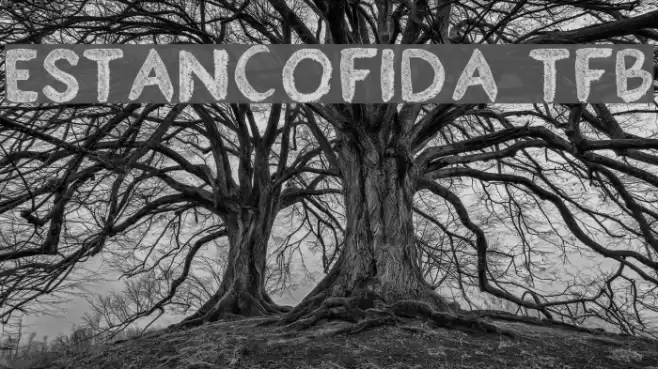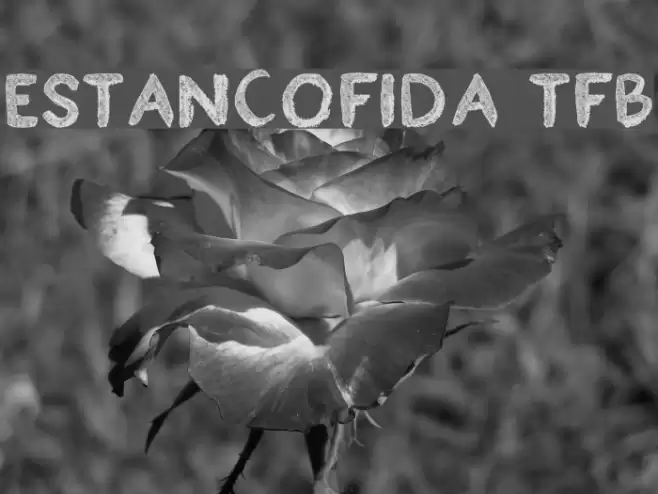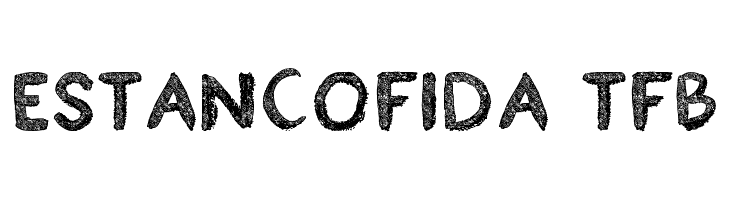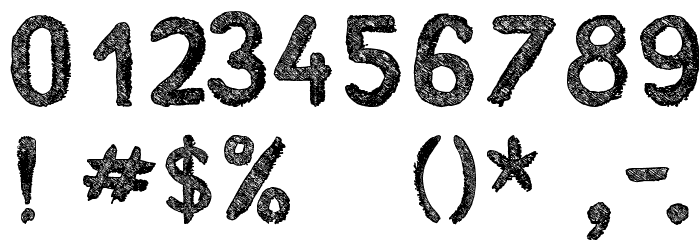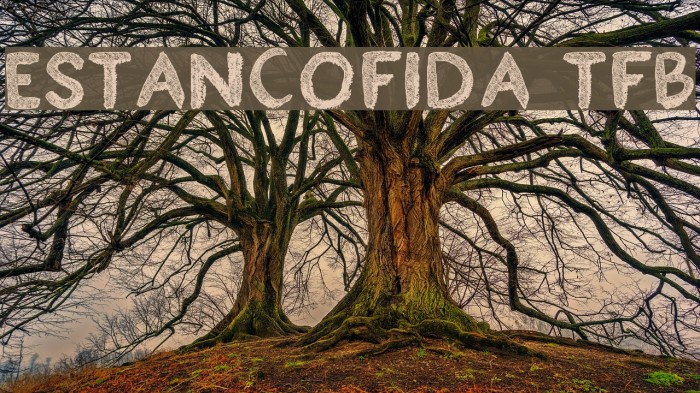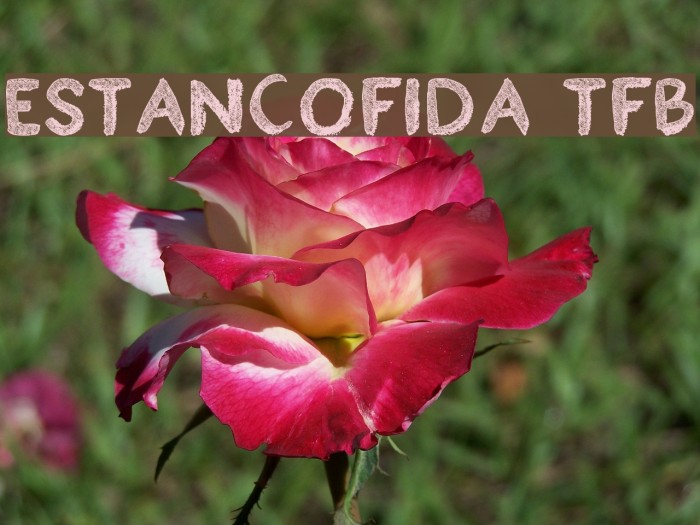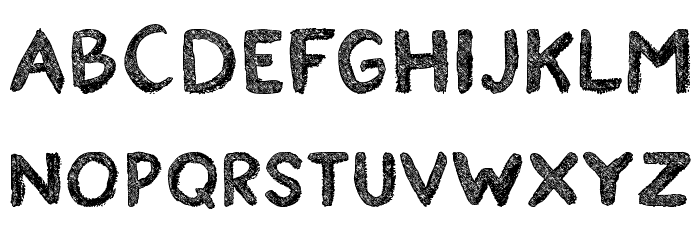
Estancofida tfb Font
Estancofida tfb Description
This font features a textured, hand-drawn appearance with a playful and artistic style. Each character is filled with a rough, stippled texture that gives it a unique, handcrafted look. The letters are bold and slightly irregular, adding to the casual and informal feel. The uppercase and lowercase letters maintain a consistent style, with rounded edges and a slightly whimsical touch. The numbers and special characters follow the same design, ensuring a cohesive appearance across all glyphs. This font is ideal for projects that require a creative and informal touch, such as posters, invitations, or artistic branding.
A textured, hand-drawn font with a playful and artistic style from Distorted Eroded fonts.
- Font: Estancofida tfb
- Proposed Projects: Ideal for creative projects like posters, invitations, and artistic branding.